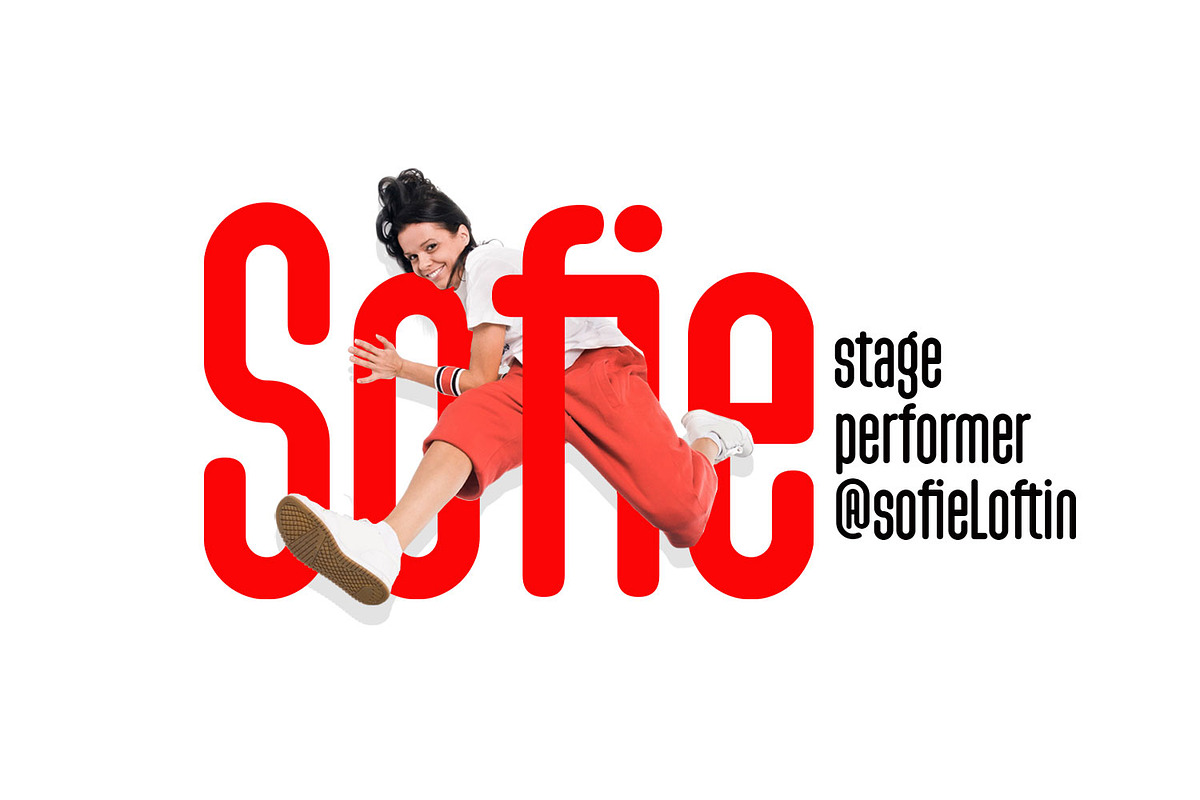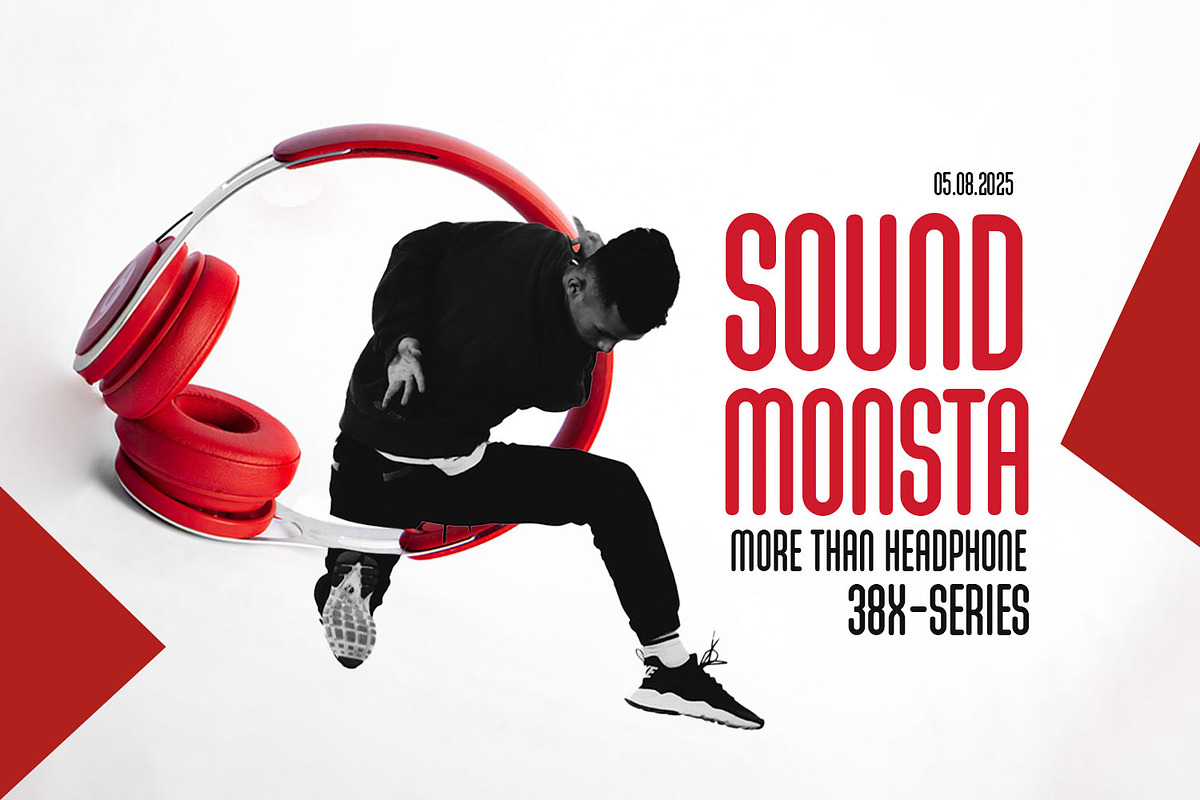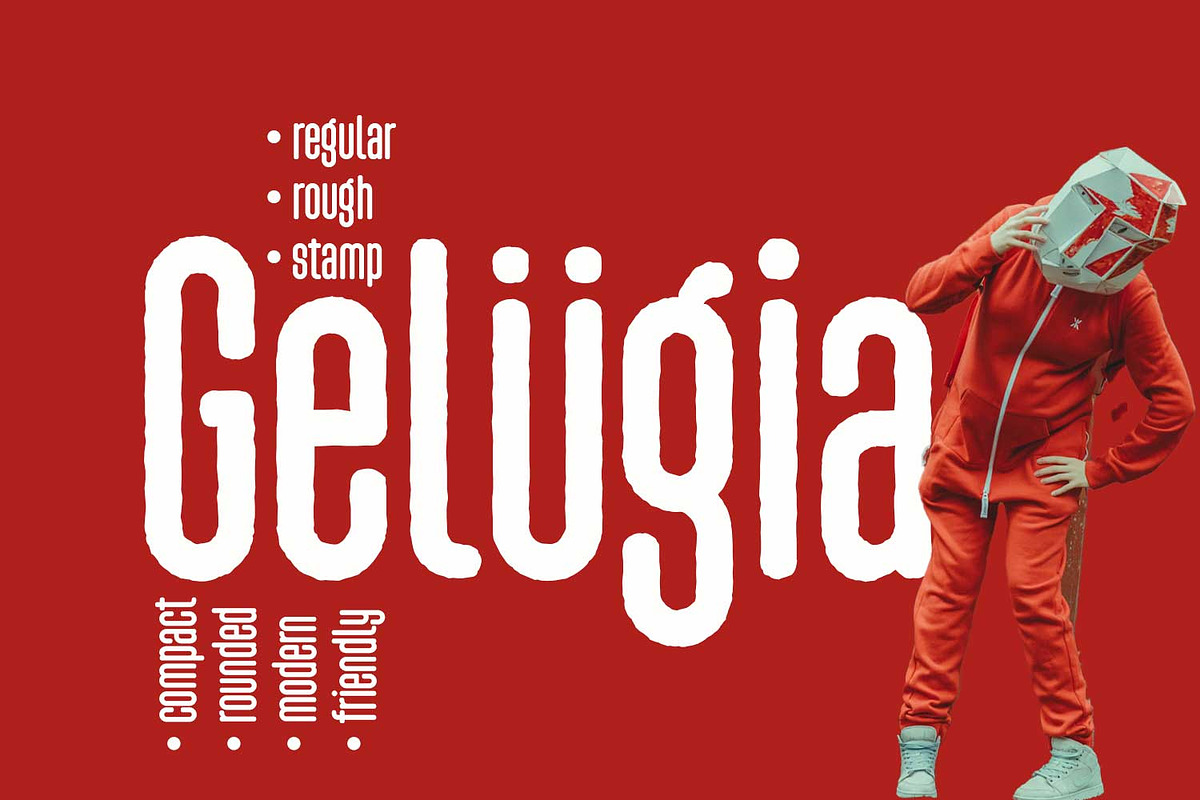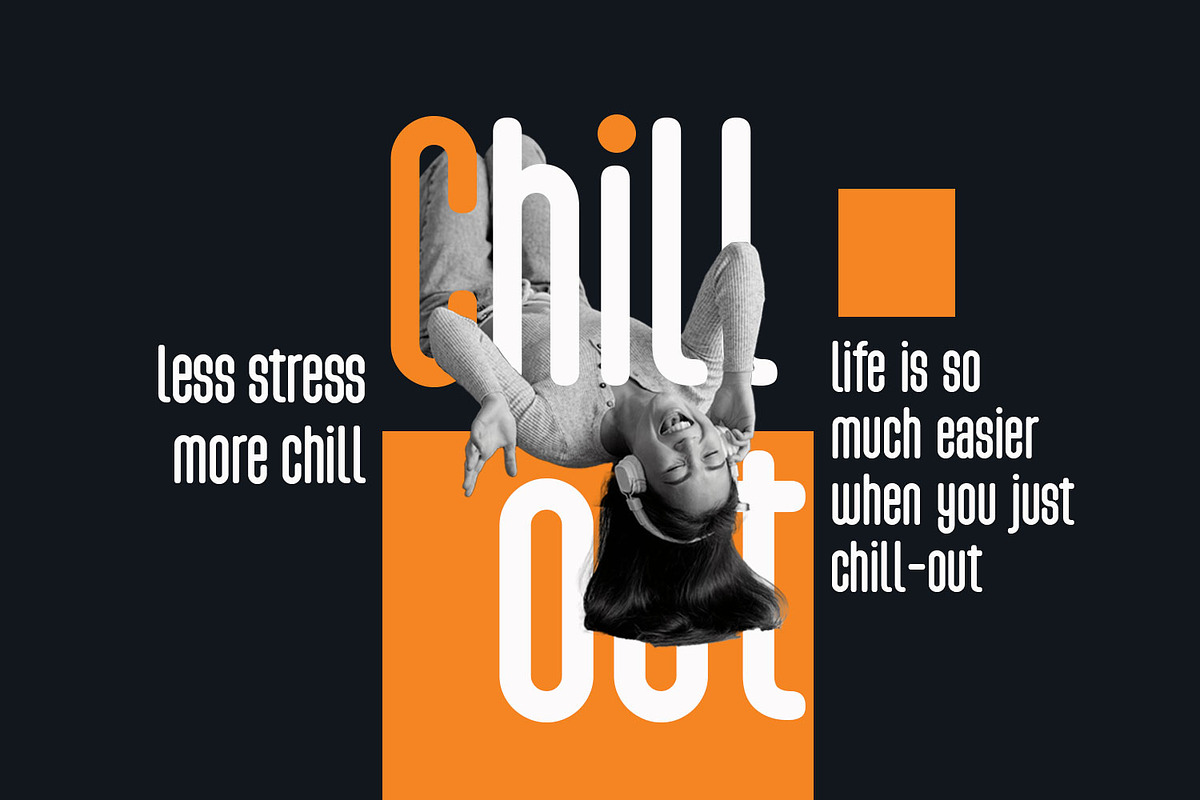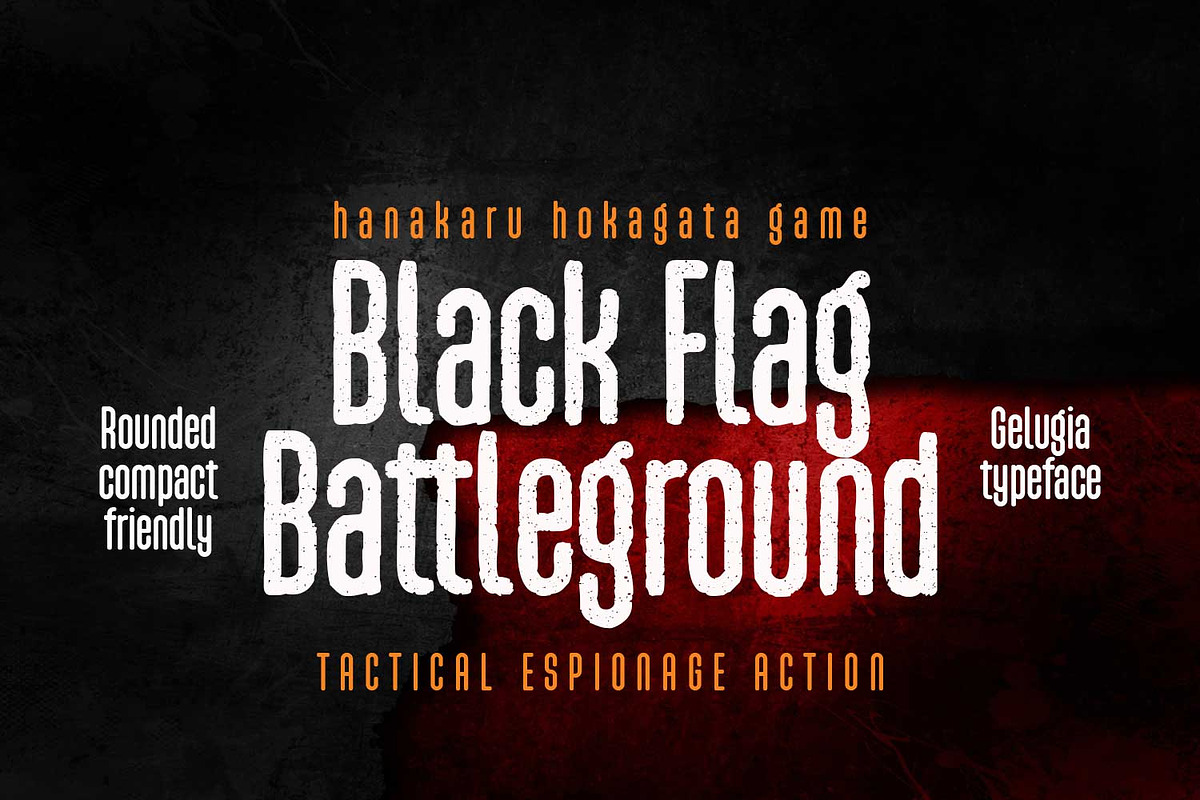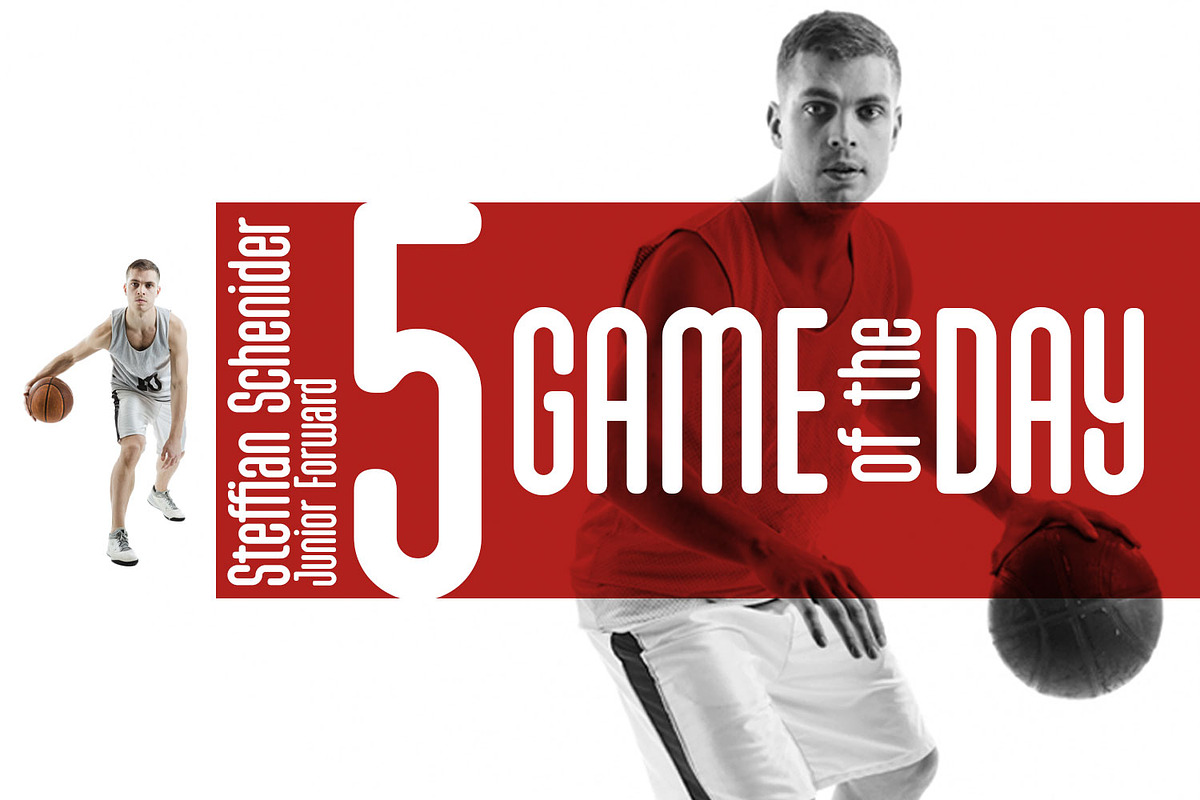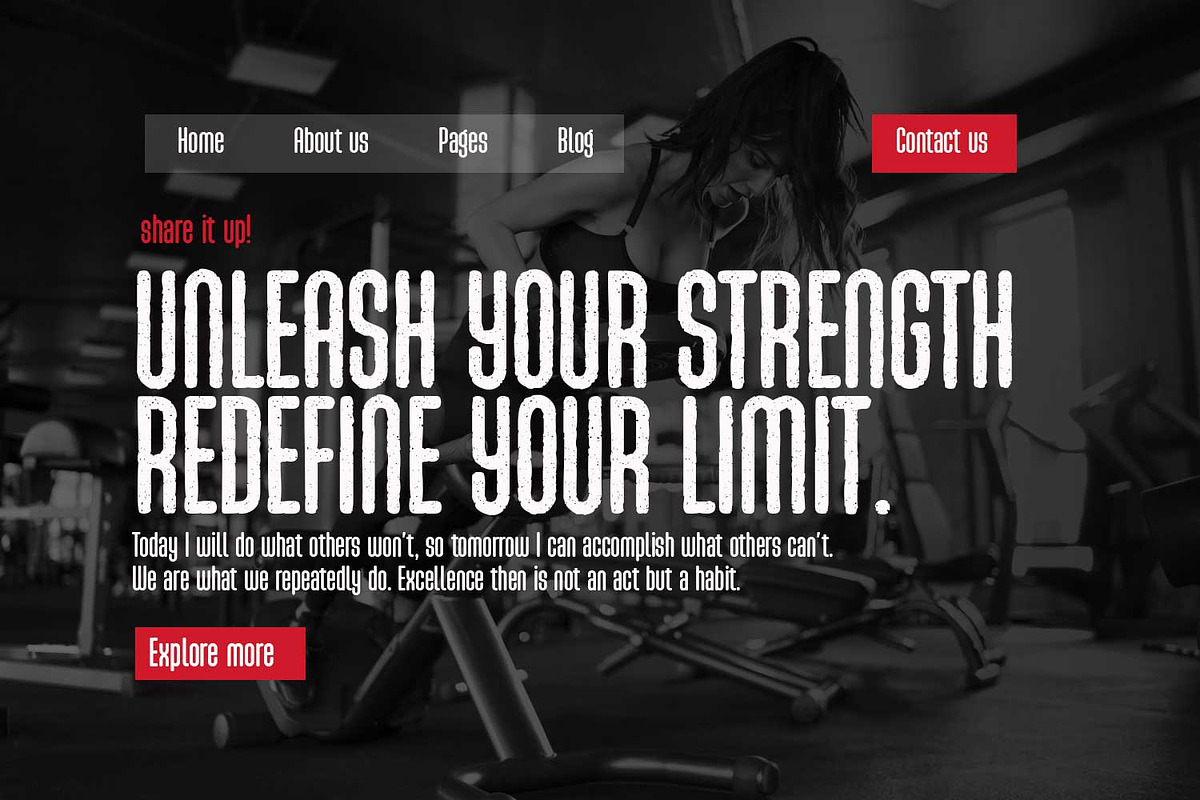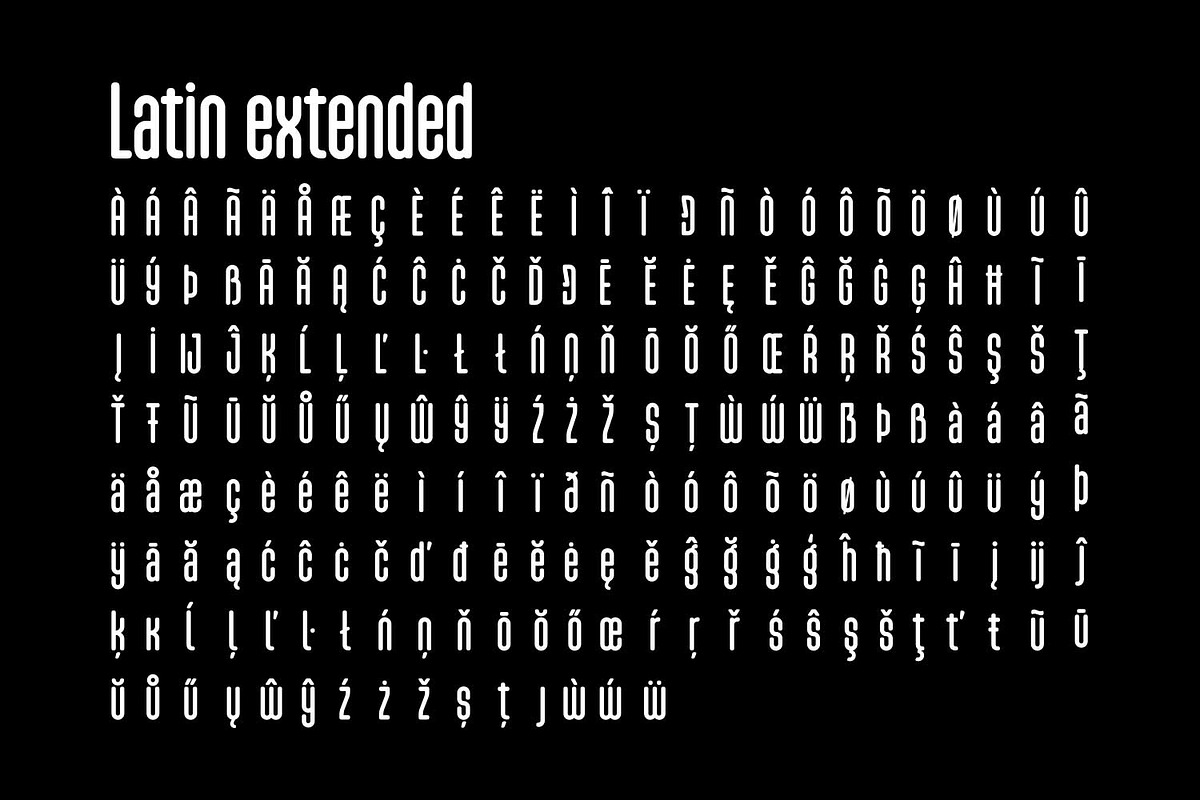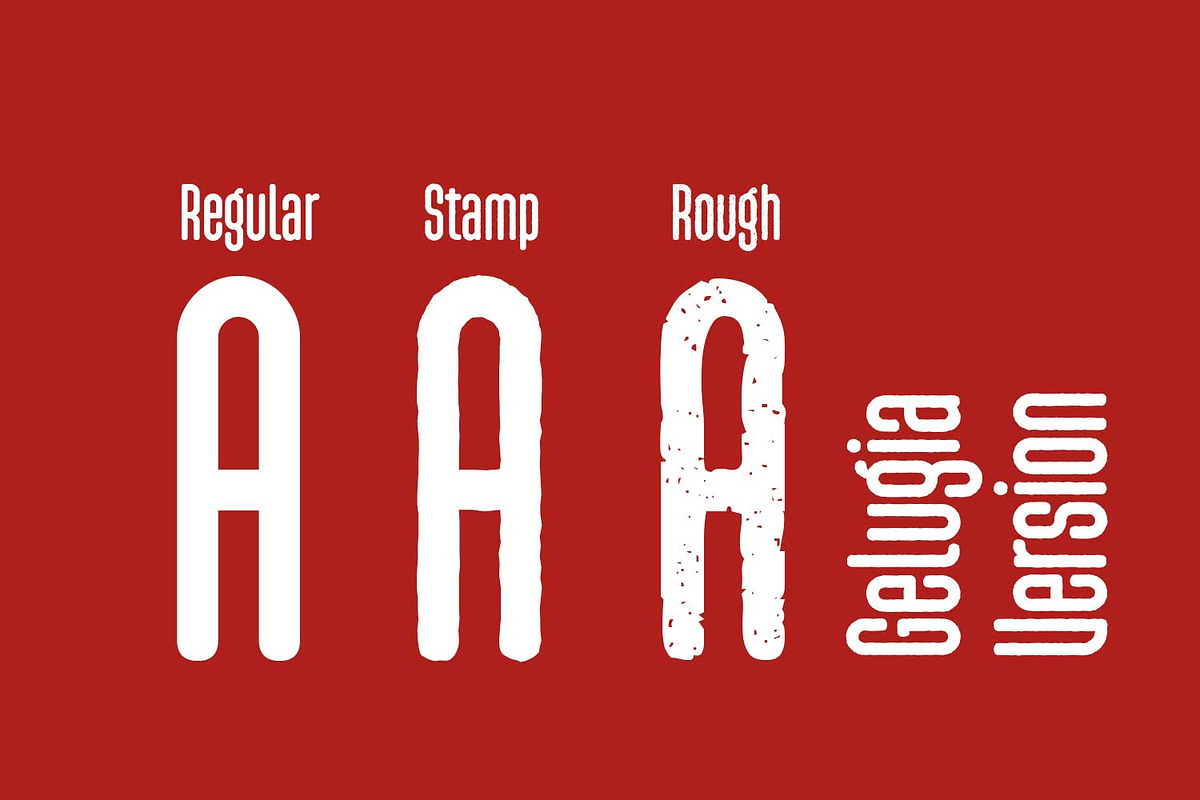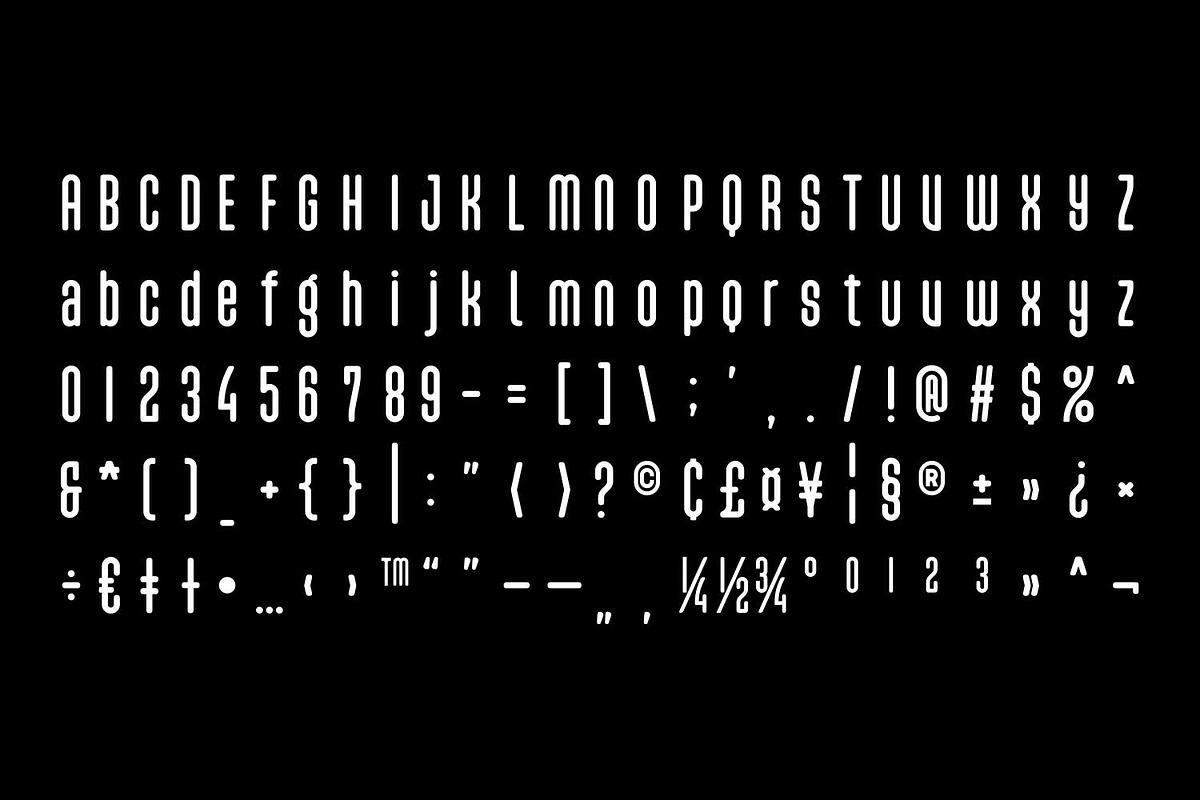
Gelugia
Gelugia is a compact, rounded sans serif that brings a sense of warmth and modernity to every letterform. Designed with friendliness at its core, Gelugia features clean curves, consistent rhythm, and a tight, upright structure that makes it both space-saving and visually bold. Its approachable shapes make it ideal for everything from energetic sports graphics to laid-back lifestyle branding, youth campaigns, and dynamic web content. Whether you're creating headlines that demand attention or playful statements that invite interaction, supports multilingual characters, and works seamlessly across print and screen. Rounded to connect, compact to fit. Gelugia is typography designed to move with modern life.